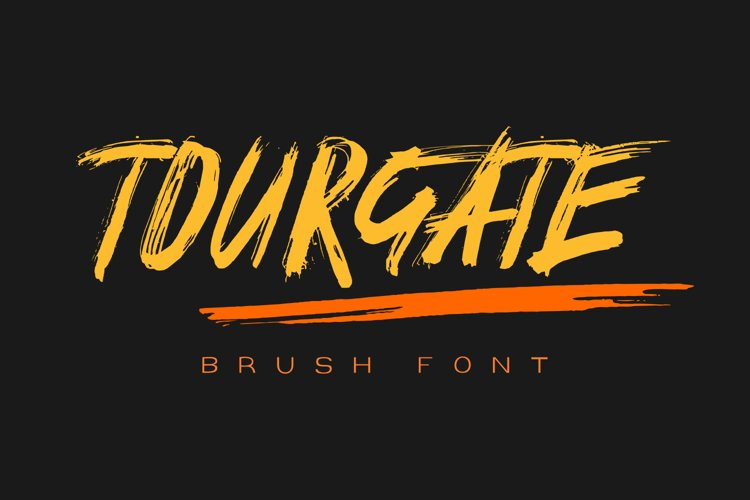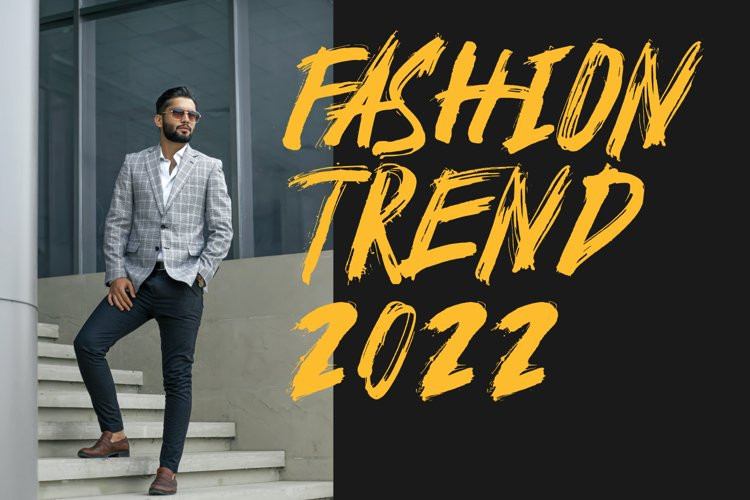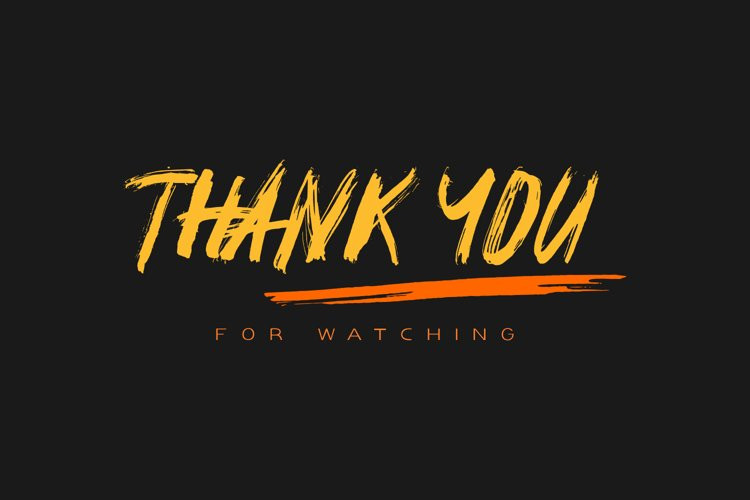
Tourgate Font
Tourgate FontIntroducing the “Tourgate” Brush font. This typeface model is suitable for you to use for product branding, logo branding, book titles, any title design. Files include OTF, TTF and WOFF